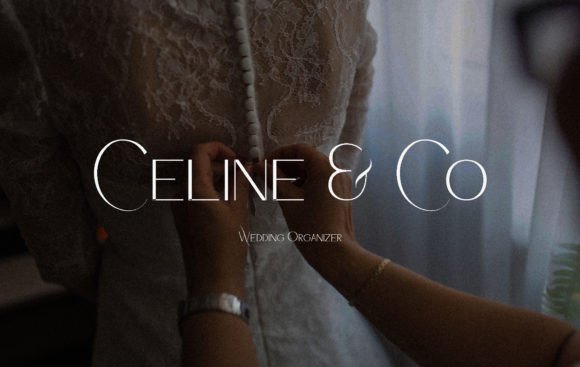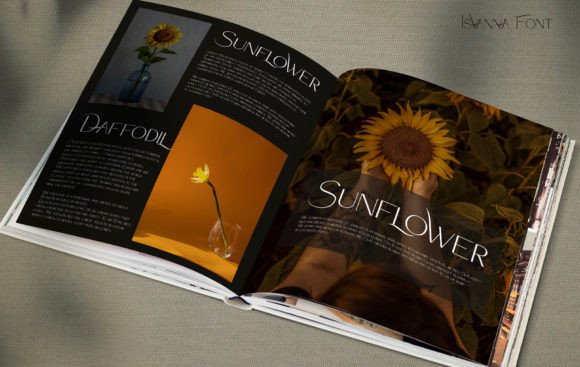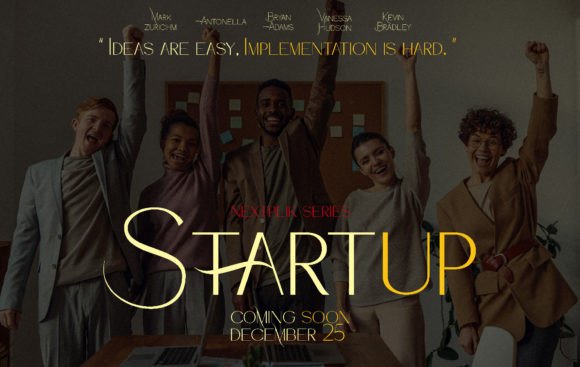
Introduction to Isvanna Font
Have you ever been working on a design project, pouring your heart and soul into it, only to feel like something is missing? You’re not alone. We’ve all been there, searching for that perfect font to elevate our work and make it truly stand out. That’s where the Isvanna Font comes in – a stunning sans serif font that’s sure to bring a touch of luxury and style to your creative projects.
As a designer, you know how valuable a high-quality design resource can be. The Isvanna Font is a game-changer, offering a free download that’s perfect for logotypes, branding, wedding monograms and invitations, blog headlines, and much more. With its elegant and sophisticated look, it’s the perfect addition to any design project, whether you’re working on a personal or commercial project.
Key Features of Isvanna Font
- High-quality, elegant design ideal for creative projects and design resources.
- Includes a transparent background, allowing for easy layering and customization.
- Features a unique, hand-drawn style that adds a touch of personality to any design project.
- Designed to be scalable, with a resolution of up to 300 DPI, making it suitable for print and digital applications.
- Includes a comprehensive character set, covering a wide range of languages and characters.
Honest Review: Isvanna Font
I recently stumbled upon the Isvanna Font, and I must say, I was quite impressed. As a designer, I’m always on the lookout for high-quality design resources that can elevate my creative projects.
One of the things that works well about the Isvanna Font is its versatility. The font comes in a range of styles, from elegant and sophisticated to modern and playful, making it perfect for a variety of design projects. I also appreciated the transparent background, which makes it easy to use as a design element in creative projects.
- ✨ Versatile font with multiple styles
Overall, I’m quite impressed with the Isvanna Font, and I think it’s a great addition to any designer’s toolkit. While it may have a few limitations, its high quality and versatility make it a valuable resource for creative projects.
Using Isvanna Font in Design Applications
Tips for Getting the Most Out of Isvanna Font
To get the most out of Isvanna Font, experiment with different font sizes, colors, and combinations to achieve the desired look. You can also use Isvanna Font in conjunction with other design elements to create a unique and eye-catching design.
Common Use Cases for Isvanna Font
Isvanna Font is perfect for creative projects such as graphic design, digital art, and typography. It can also be used for presentations, posters, and other visual materials that require a clean and modern look.
Alternatives to Isvanna Font
The Alex Brush Font is a high-quality script font perfect for creative projects that require a touch of elegance. It features a transparent background and is ideal for use in design resources such as logos, invitations, and packaging. It’s a great alternative to Isvanna Font for designers looking for a similar, yet distinct, look.
When to use: Wedding invitations, luxury brand logos, high-end packaging.
Comparison to Isvanna Font: Alex Brush Font has a more refined and sophisticated feel, while Isvanna Font has a more playful and whimsical touch.
The Great Vibes Font is a modern and elegant script font ideal for design projects that require a sense of sophistication. It features a transparent background and is perfect for use in design resources such as logos, posters, and business cards. It’s a great alternative to Isvanna Font for designers looking for a clean and minimalist look.
When to use: Business cards, posters, magazine headlines.
Comparison to Isvanna Font: Great Vibes Font has a more streamlined and modern feel, while Isvanna Font has a more ornate and decorative touch.
Does the Isvanna Font have a transparent background?
The Isvanna Font is designed with a transparent background, making it easy to use with various design elements and backgrounds. This feature is especially useful for creating visually appealing graphics and designs.